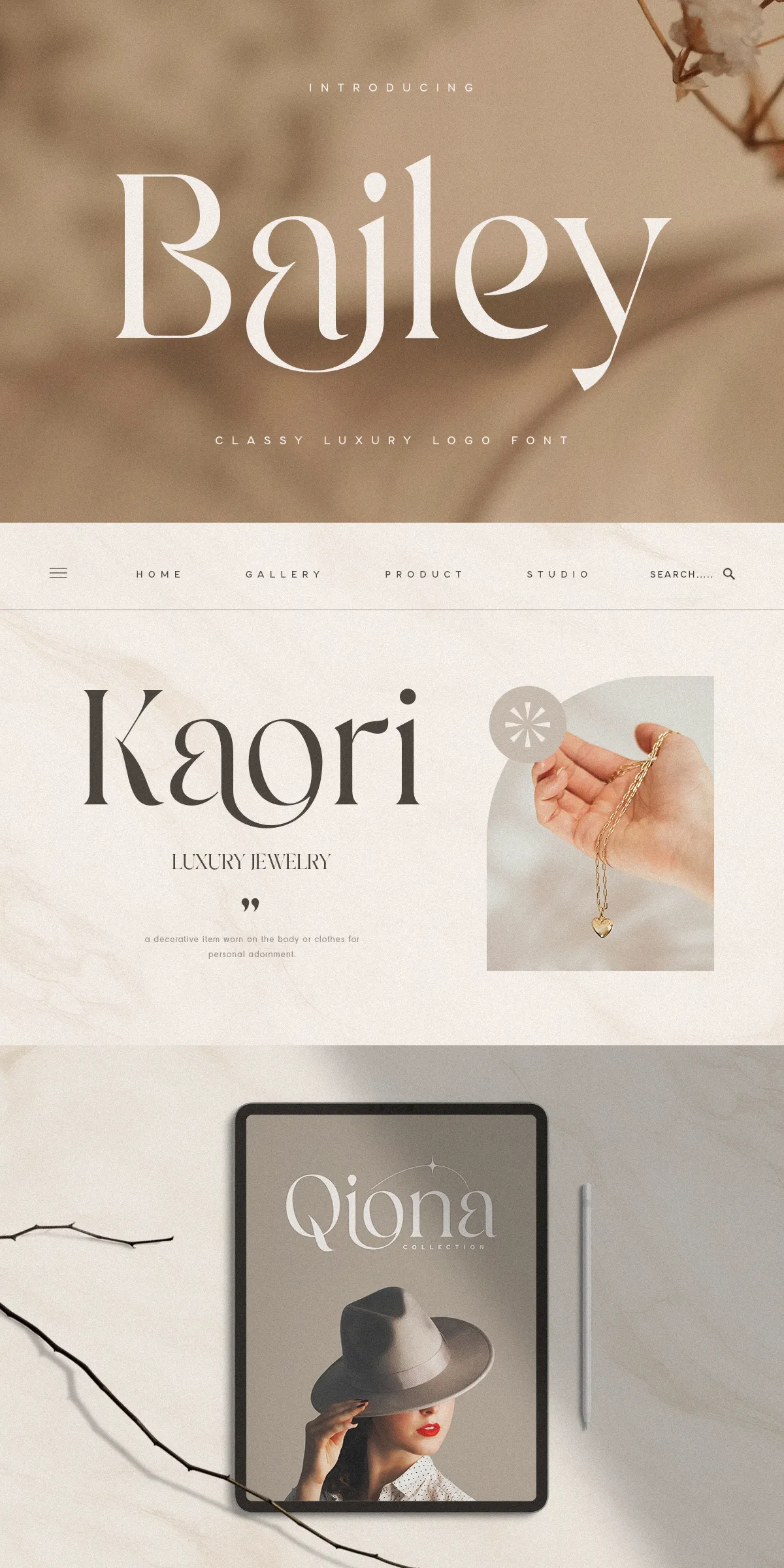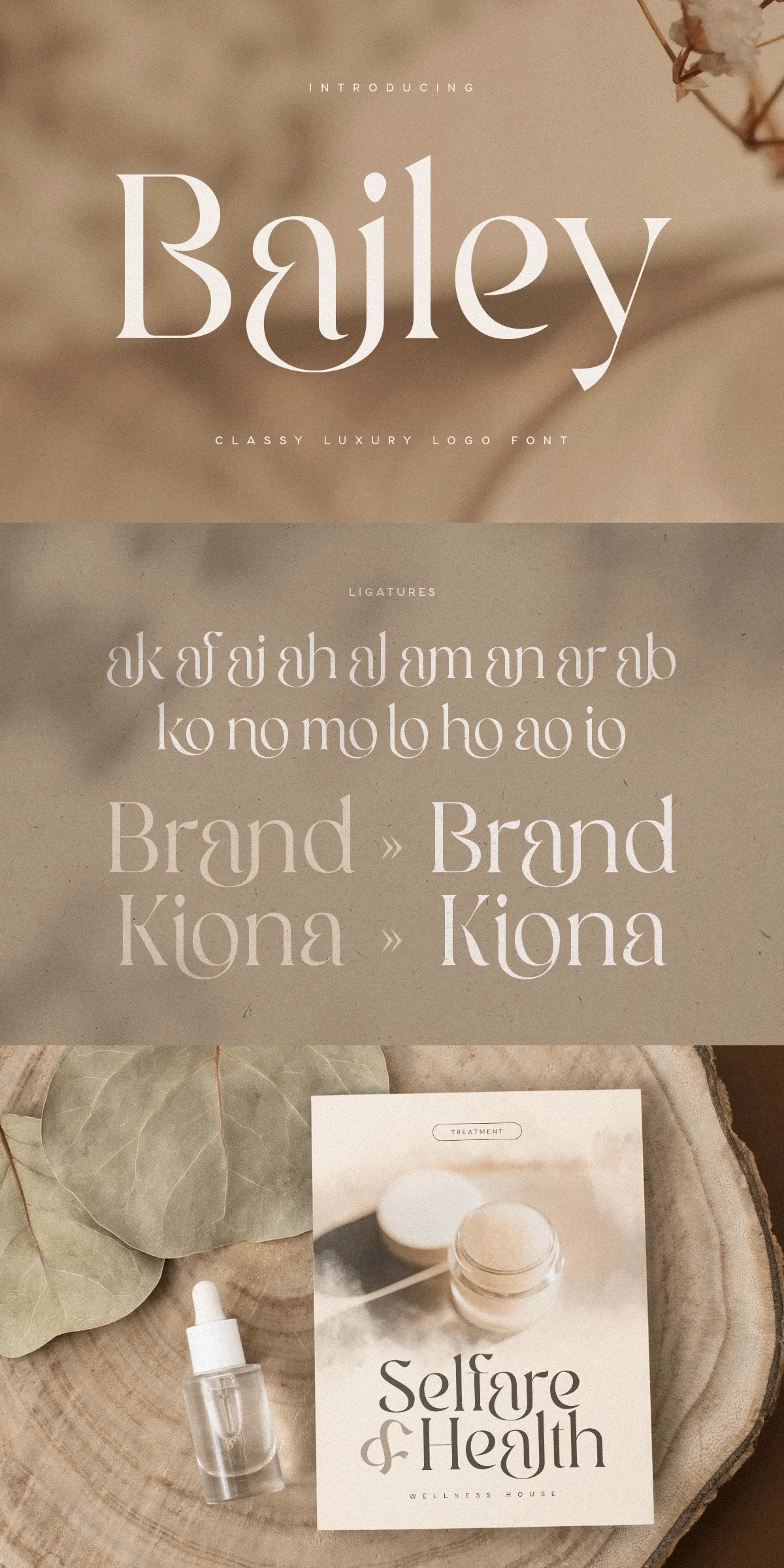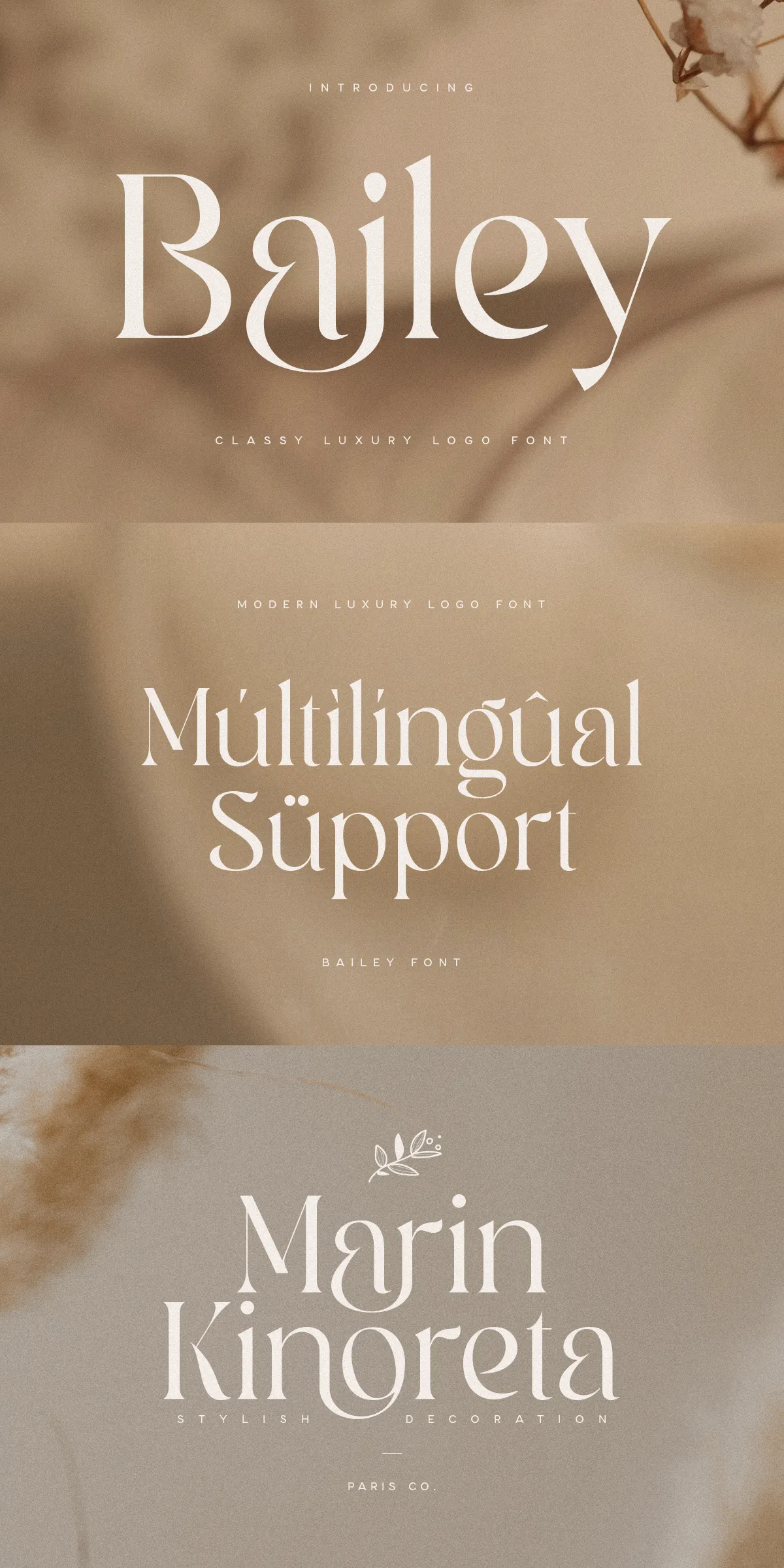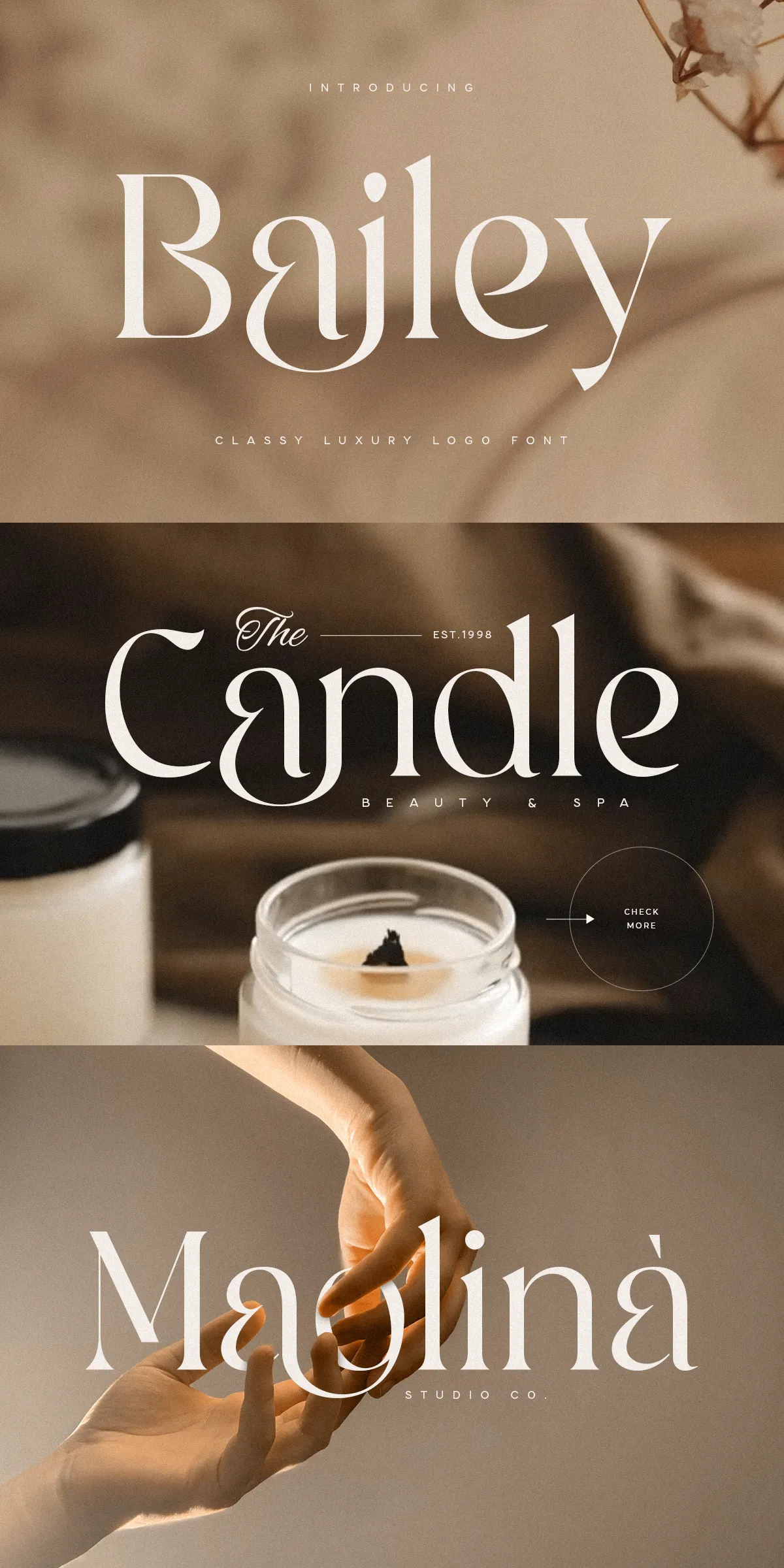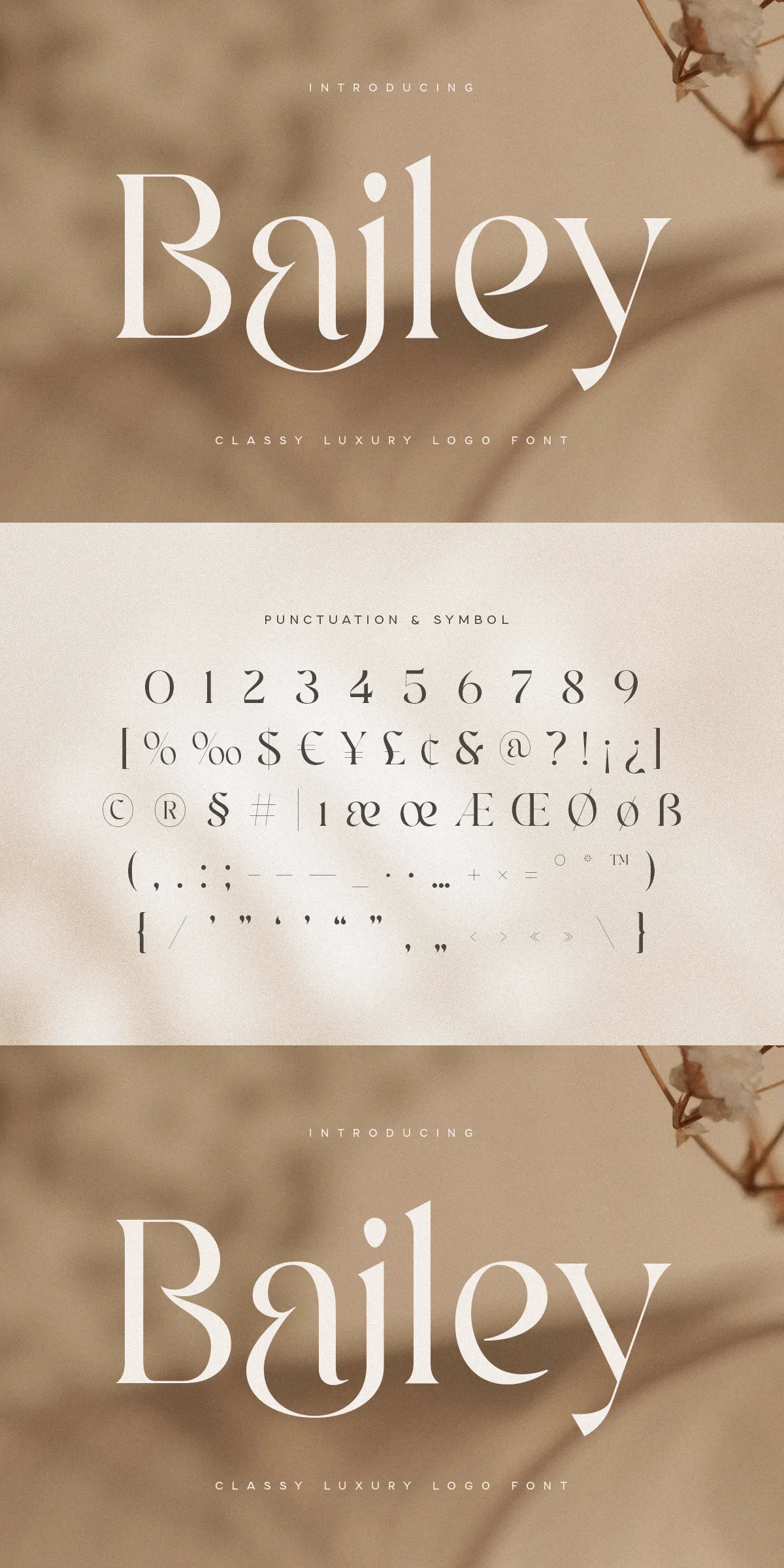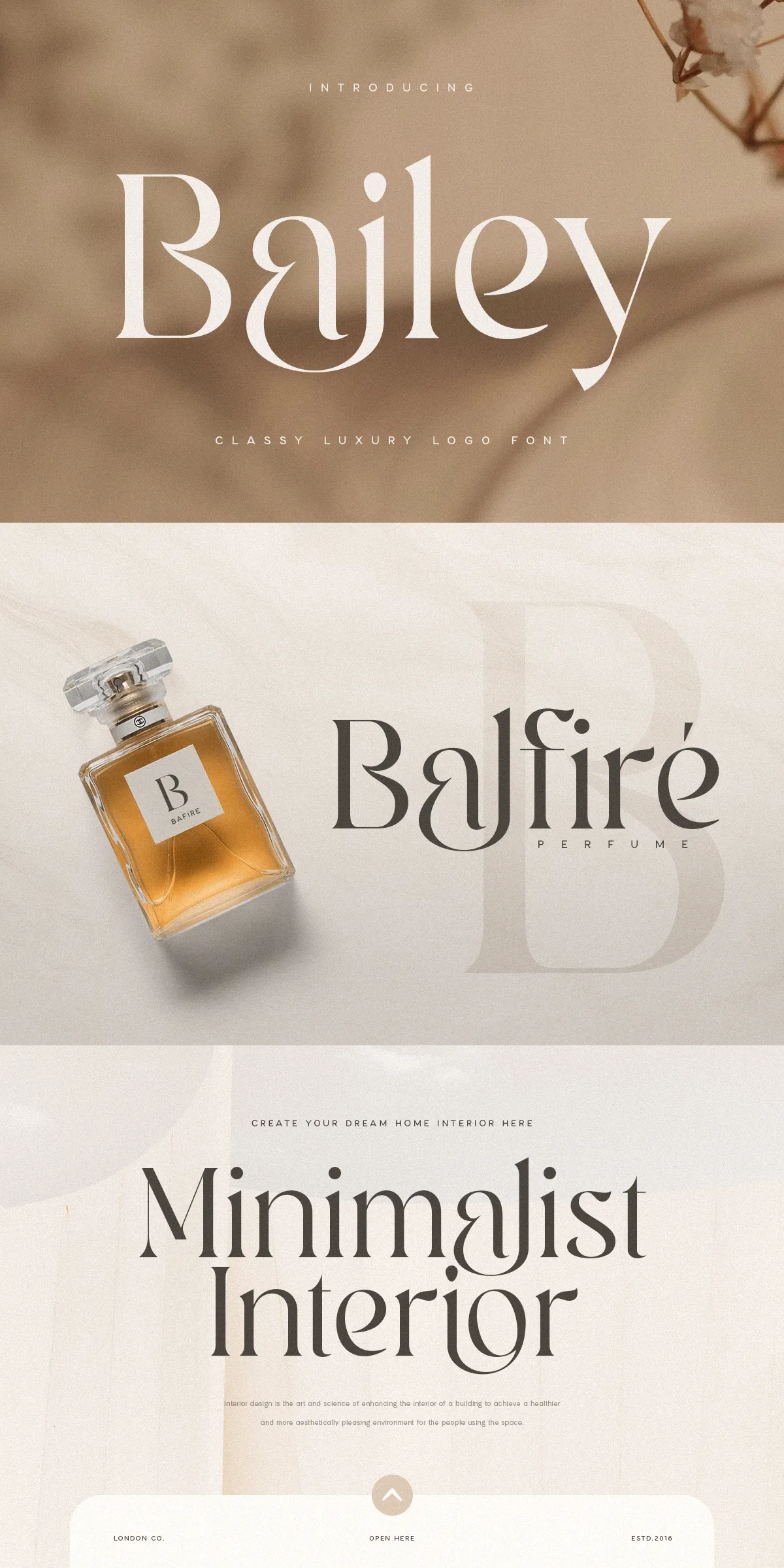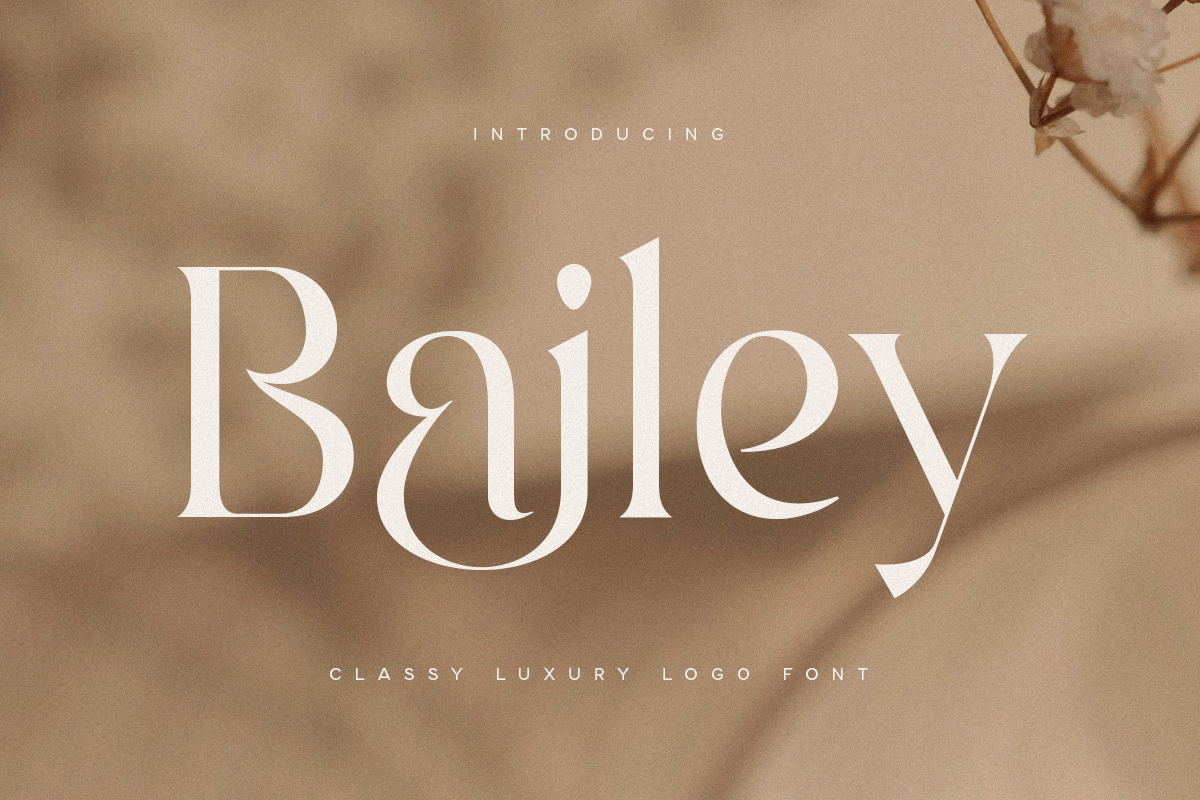
Step into a world of unparalleled elegance with Bailey — a breathtaking serif font engineered for cinematic grandeur and luxury branding. Every letter is sculpted with precision, blending classic typographic heritage with modern sophistication to create a font that doesn’t just communicate — it commands attention.
Designed for Drama, Perfected for Impact
Bailey isn’t just a font — it’s a statement of taste. Its flowing serifs, refined stroke contrast, and balanced proportions make it ideal for projects that demand drama, depth, and distinction. Whether you’re crafting a film title, designing a luxury brand identity, or creating an editorial layout that turns heads, Bailey brings a cinematic pulse to every word.
- Cinematic Scale — Designed to shine on posters, trailers, and cover art, with bold presence and emotional resonance.
- Luxury Aesthetic — Every character exudes refinement, from the delicate flounce of the ascenders to the crisp terminals.
- High-Contrast Rhythm — Elegant stroke variation adds movement and visual intrigue, perfect for expressive typography.
Where Elegance Meets Versatility
Though inspired by classic serif traditions, Bailey has been reimagined for today’s design landscape. It thrives across a broad spectrum of high-end applications:
- Film & Video Titles — Perfect for opening credits, movie posters, and promotional visuals that demand authority and style.
- Branding & Identity — Elevate luxury brands, boutique agencies, and premium products with a font that whispers exclusivity.
- Editorial Layouts — Add gravitas to magazines, fashion spreads, and high-fashion publications.
- Elegant Invitations — Create wedding, gala, and anniversary invitations that feel timeless and unforgettable.
- High-End Packaging — Enhance luxury boxes, bottles, and retail displays with a visual language of class.
Use it in all caps for dramatic headlines, or in lowercase for intimate, refined body text — Bailey adapts with grace and confidence.
Technical Excellence, Seamless Integration
- OpenType Features — Access ligatures, stylistic alternates, and expert character sets to customize your design with precision.
- Complete Character Set — Full support for Latin, Extended Latin, numerals, punctuation, and multilingual symbols.
Visual Inspiration to Ignite Your Creativity
The Bailey package includes inspirational previews and sample designs to spark your imagination. See how it transforms simple text into powerful visual narratives — from moody film posters to sleek brand campaigns.
These pre-designed layouts are more than examples — they’re blueprints for your next masterpiece. Use them as a foundation or let them inspire a bold new direction.